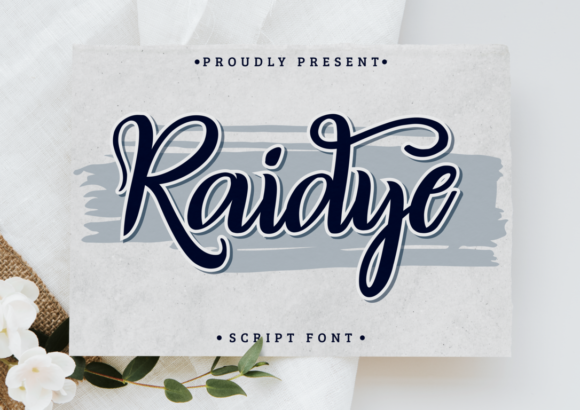
Unleash the captivating allure of Raidye, a meticulously crafted script font that exudes elegance and sophistication. Immerse yourself in the world of typography with this exquisite creation by loklike, designed to elevate your designs to new heights.
Immerse yourself in the intricate beauty of Raidye, a font that dances across the page like a gentle breeze. Each letterform flows effortlessly into the next, creating a harmonious symphony of curves and flourishes. Whether you're designing a wedding invitation, a heartfelt letter, or a captivating social media post, Raidye will add a touch of timeless charm to your words.
With Raidye, you'll have a font that's as versatile as your imagination. Its delicate strokes and graceful curves make it the perfect choice for any project that calls for a touch of elegance and sophistication. Whether you're creating a stunning logo, a captivating flyer, or a memorable website, Raidye will elevate your designs to new heights.
But Raidye is more than just a beautiful font – it's a key to unlocking your creativity. With its PUA encoding, you can effortlessly access a world of stunning glyphs and ligatures. Unleash your imagination and explore endless possibilities, creating designs that are as unique and captivating as your own vision.
With Raidye, you'll discover a font that's not just a tool, but a work of art. Each letterform has been lovingly crafted to evoke a sense of timeless beauty and sophistication. Experience the joy of creating designs that will leave a lasting impression, capturing hearts and minds with their undeniable allure.
Don't settle for ordinary fonts – embrace the exquisite beauty of Raidye. Let your designs blossom with elegance and sophistication, and experience the transformative power of a truly remarkable font. Immerse yourself in the world of Raidye, and discover the endless possibilities that await.